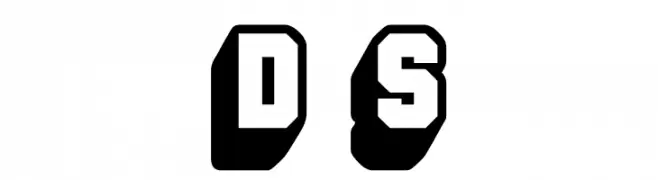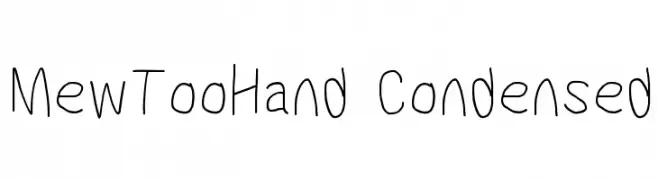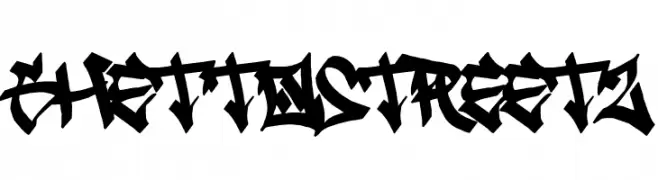
A modern sans-serif font with clean lines and a professional appearance.
A bold, pixelated font with a retro digital aesthetic.
A flowing, elegant cursive script with bold uppercase and smooth lowercase letters.
A bold, three-dimensional font with deep shadow effects for standout text.
A playful and casual handwritten font with rounded, smooth letterforms.
A bold, textured font with a hand-drawn, stitched appearance.
A bold, graffiti-inspired font with sharp, angular lines and an urban feel.
A dynamic and expressive script font with fluid, elegant strokes.